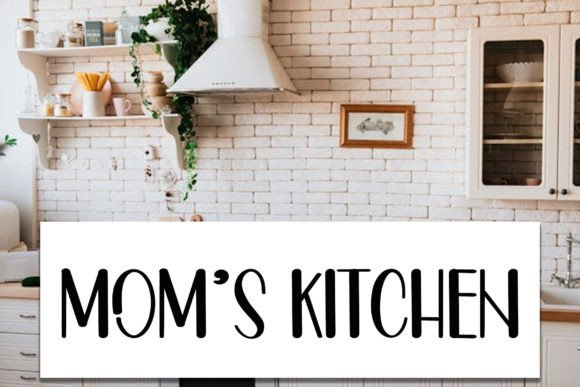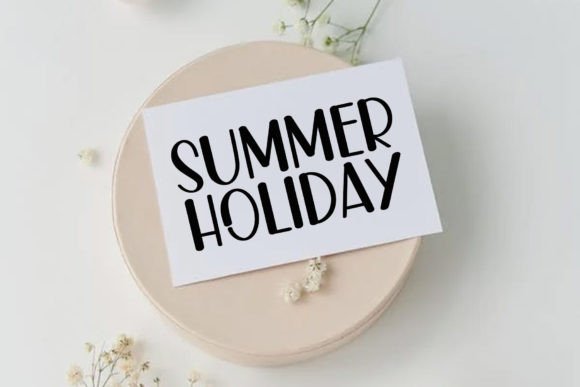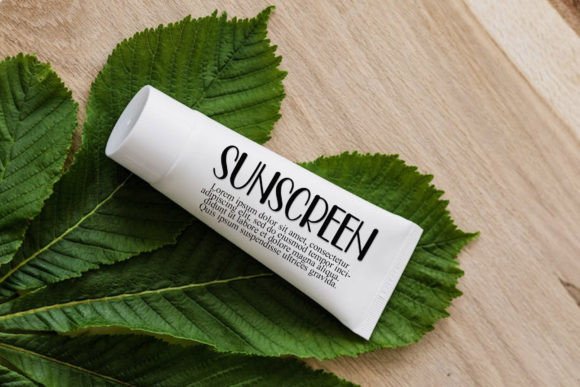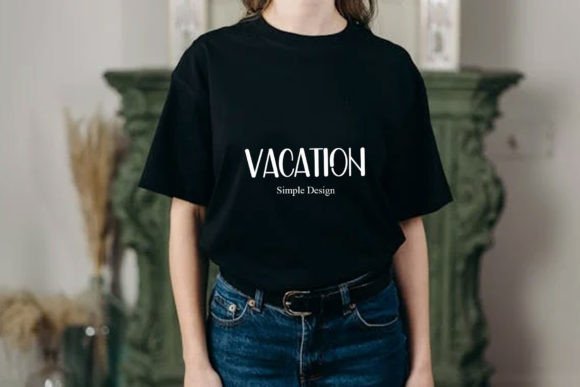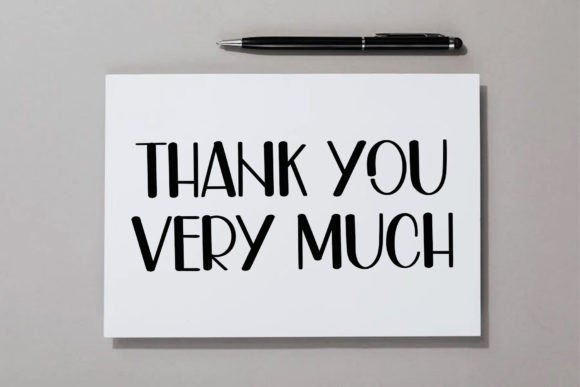
Introducing Creative Design Font: The Perfect Holiday Companion for Designers and Crafters
The holiday season is upon us, and with it comes the need for designs that capture the spirit of joy, cheer, and festivity. For designers and crafters looking to add a touch of magic to their projects, the Creative Design Font is here to make your wishes come true. This delightful typeface is not just a font; it’s an experience that brings a nostalgic and cheerful atmosphere to your words, making it perfect for a variety of holiday-themed projects.
What Makes Creative Design Font So Special?
Creative Design Font stands out with its decorative elements and unique flair, embodying the essence of the holiday season. Its design is meticulously crafted to infuse your projects with a sense of charm and festivity, making it an ideal choice for:
• Greeting cards that need a personal touch
• Gift labels that stand out
• Holiday-themed projects that require a cheerful vibe
Whether you’re working on a Christmas card, a Hanukkah greeting, or a New Year’s Eve invitation, this font adds that special something that makes your design pop.
The Power of PUA Coding
Bringing a Cheerful and Nostalgic Atmosphere to Your Designs
The Creative Design Font is more than just a collection of letters; it’s a way to evoke emotions and create a connection with your audience. Its festive and happy design taps into the nostalgia of holiday seasons past, while its cheerfulness ensures your designs feel current and engaging.
Imagine wrapping your loved ones in a warm, digital hug with a greeting card that feels like a hug in itself. Or picture your gift labels looking so enticing that they become a part of the gift-giving experience. That’s what the Creative Design Font offers – a chance to make your designs feel more personal and heartfelt.
Why Choose Creative Design Font?
In a world where digital designs are everywhere, standing out is crucial. Here are a few reasons why the Creative Design Font should be your go-to for holiday projects:
• Unique Designs: Its decorative elements ensure your projects are one-of-a-kind.
• Versatility: Suitable for a range of projects, from professional to personal.
• Festive Spirit: Captures the joy and cheer of the holiday season perfectly.
The Creative Design Font is a fantastic addition to any designer’s or crafter’s toolkit, especially during the holiday season. Its unique design, combined with the ease of use provided by PUA coding, makes it the perfect choice for adding a festive touch to your projects.
So why settle for ordinary when you can make your designs extraordinary? Embrace the festive spirit and let the Creative Design Font guide you in creating holiday projects that are not just visually stunning but also filled with cheer and nostalgia.